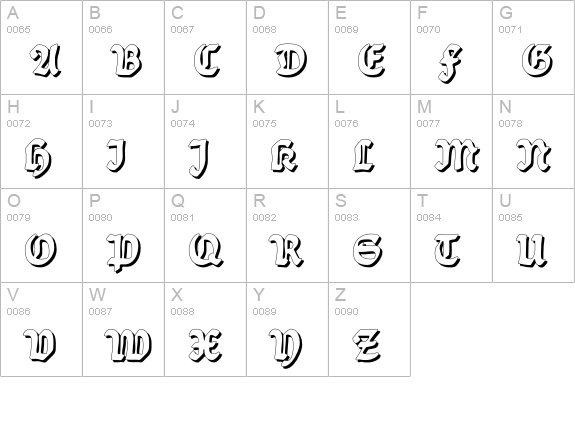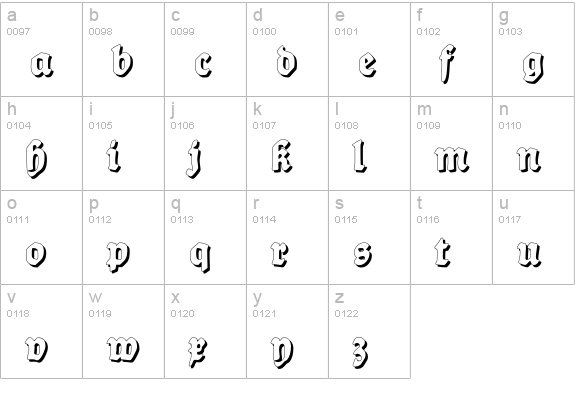
Ballade Shadow Font Details
Ballade Shadow is a captivating and elegant font that exudes a sense of mystery and sophistication. With its unique shadow effect, this font adds depth and dimension to any design project, making it stand out from the crowd. Whether you're creating invitations, posters, or branding materials, Ballade Shadow is the perfect choice to add a touch of drama and flair. The best part is that Ballade Shadow is completely free to download at FontsMarket.com. This means you can elevate your designs without breaking the bank. So why wait? Download Ballade Shadow today and let your creativity shine with this stunning and versatile font.